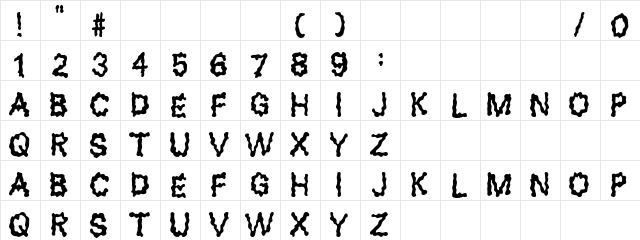
Frangmento Sans Regular
Design Context for Frangmento Sans Typeface
Frangmento Sans is a composed and adaptable typeface that performs quietly and consistently across a wide range of design contexts.